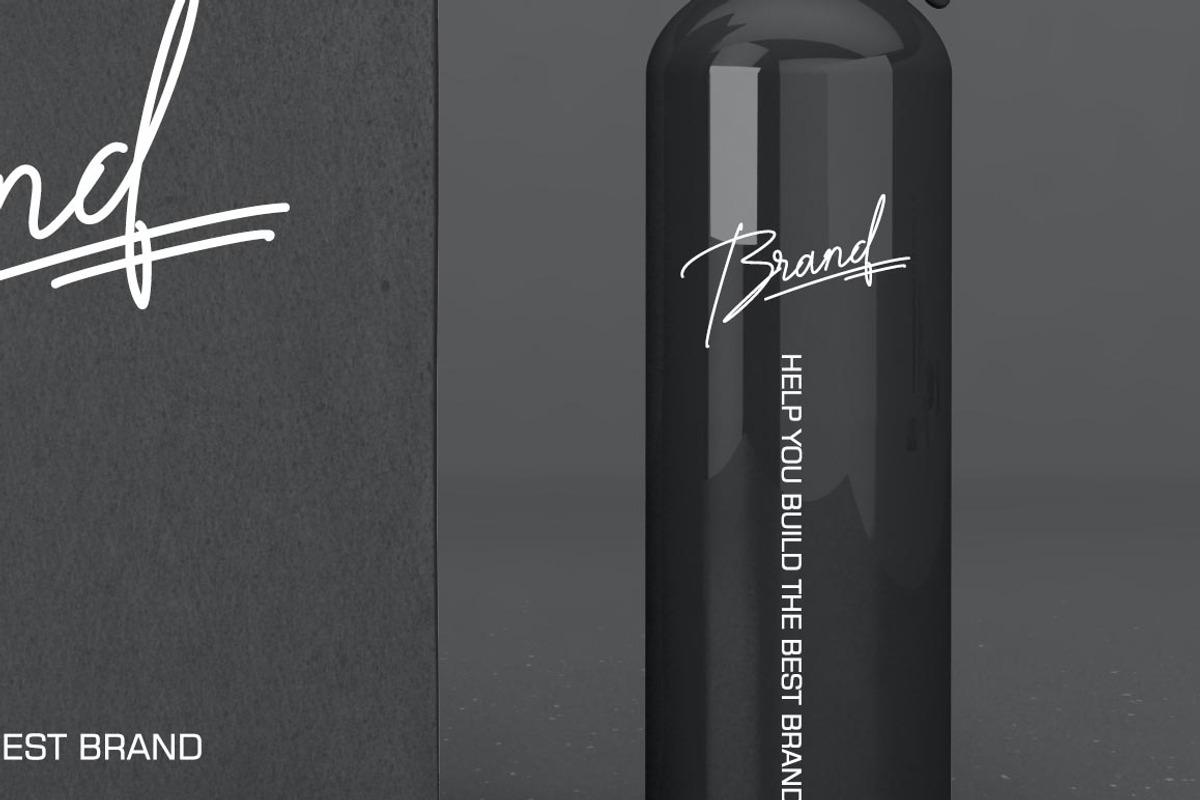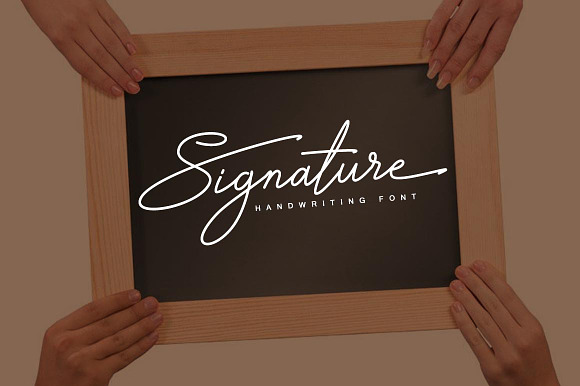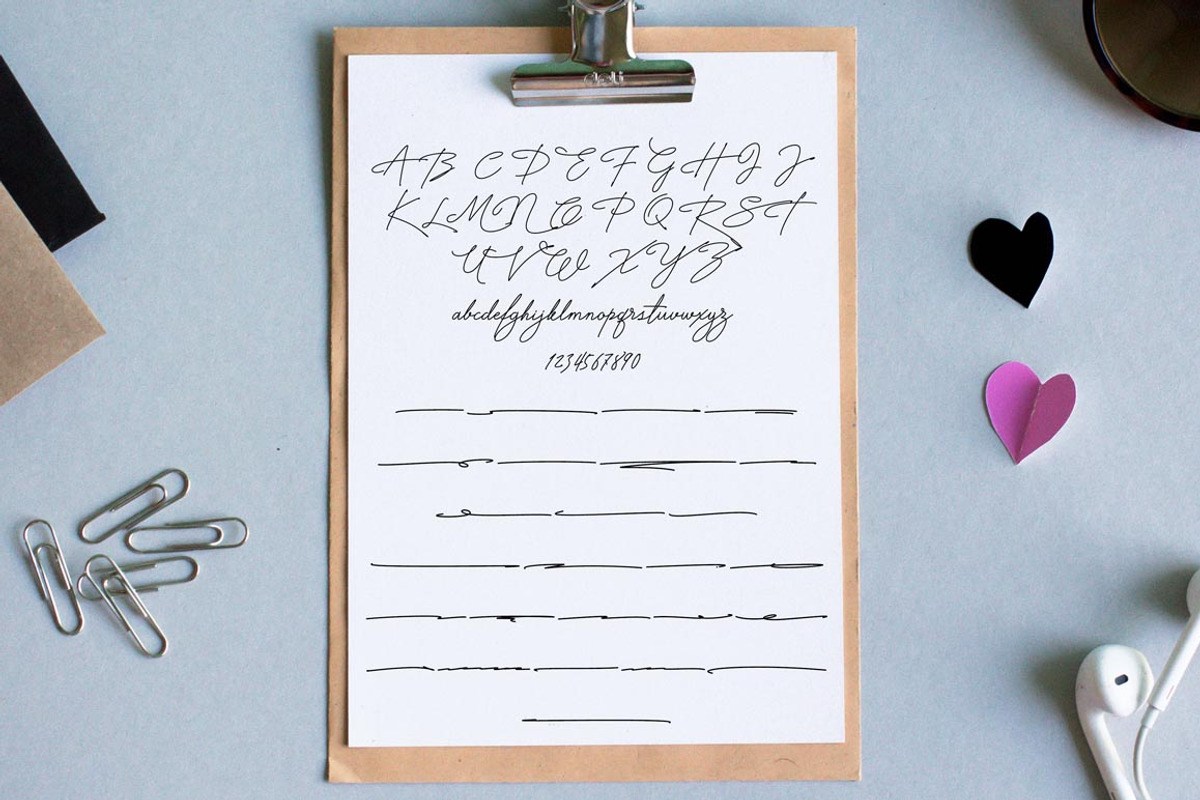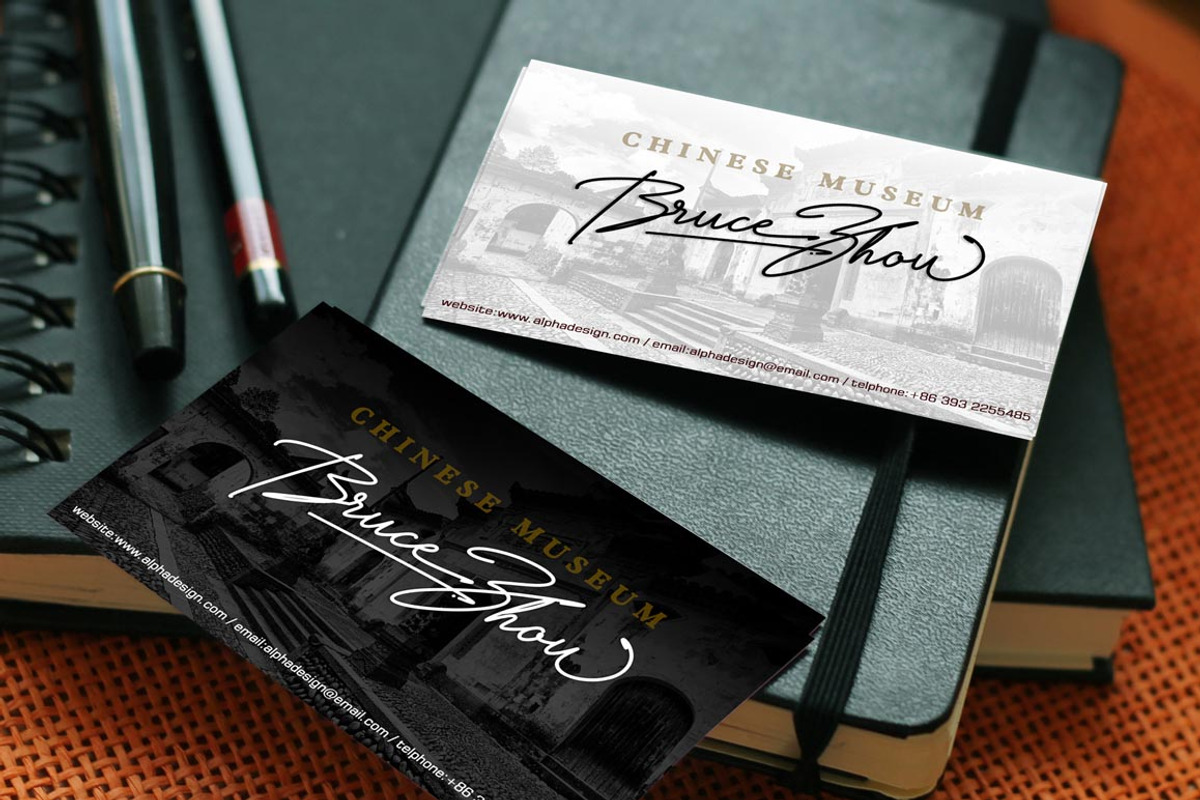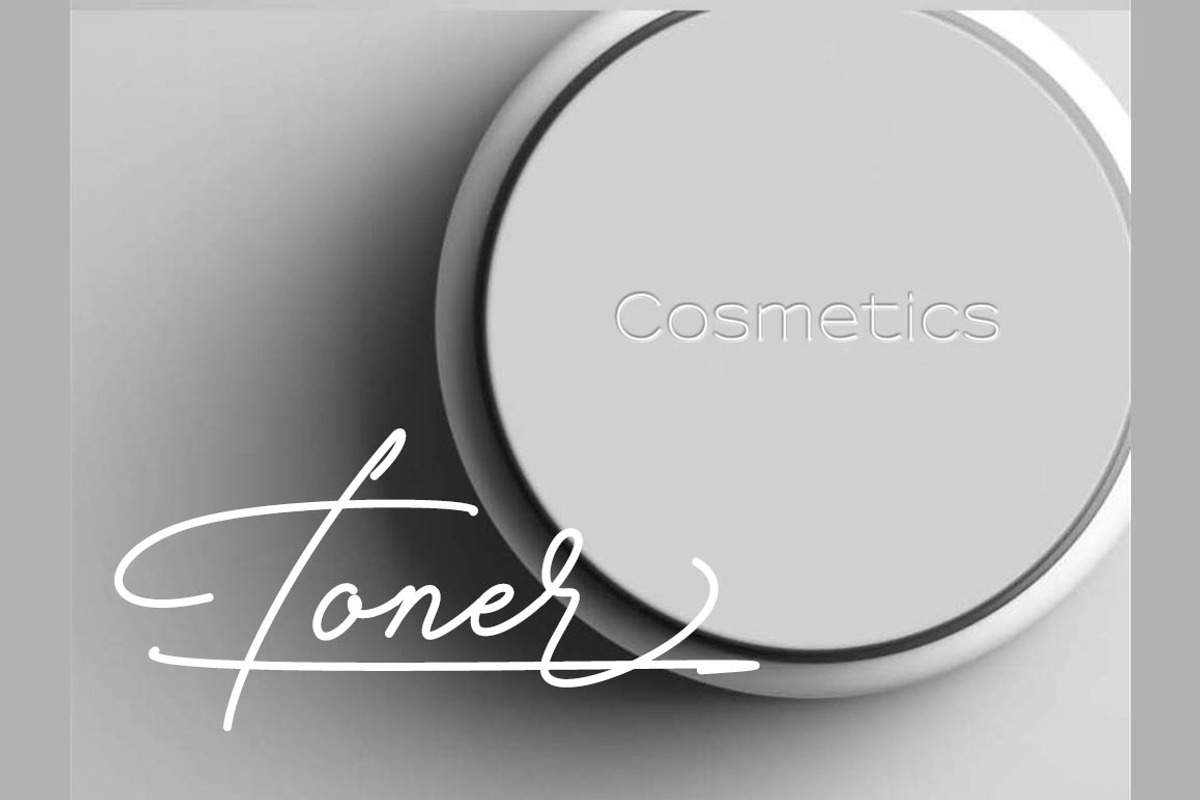
Signature TypeFace
Signature is Hand lettering font, suitable for signature and hand written manuscript, include Regular Font and extended underline.
Signature TypeFace by alphadesign fits naturally into Branding, posters, packaging, typography.